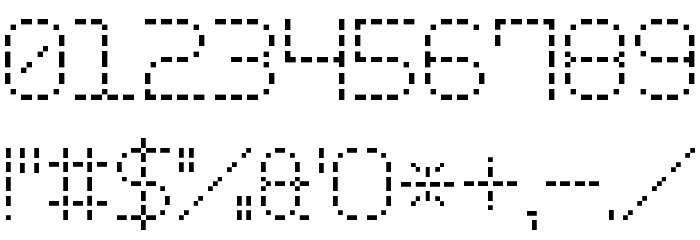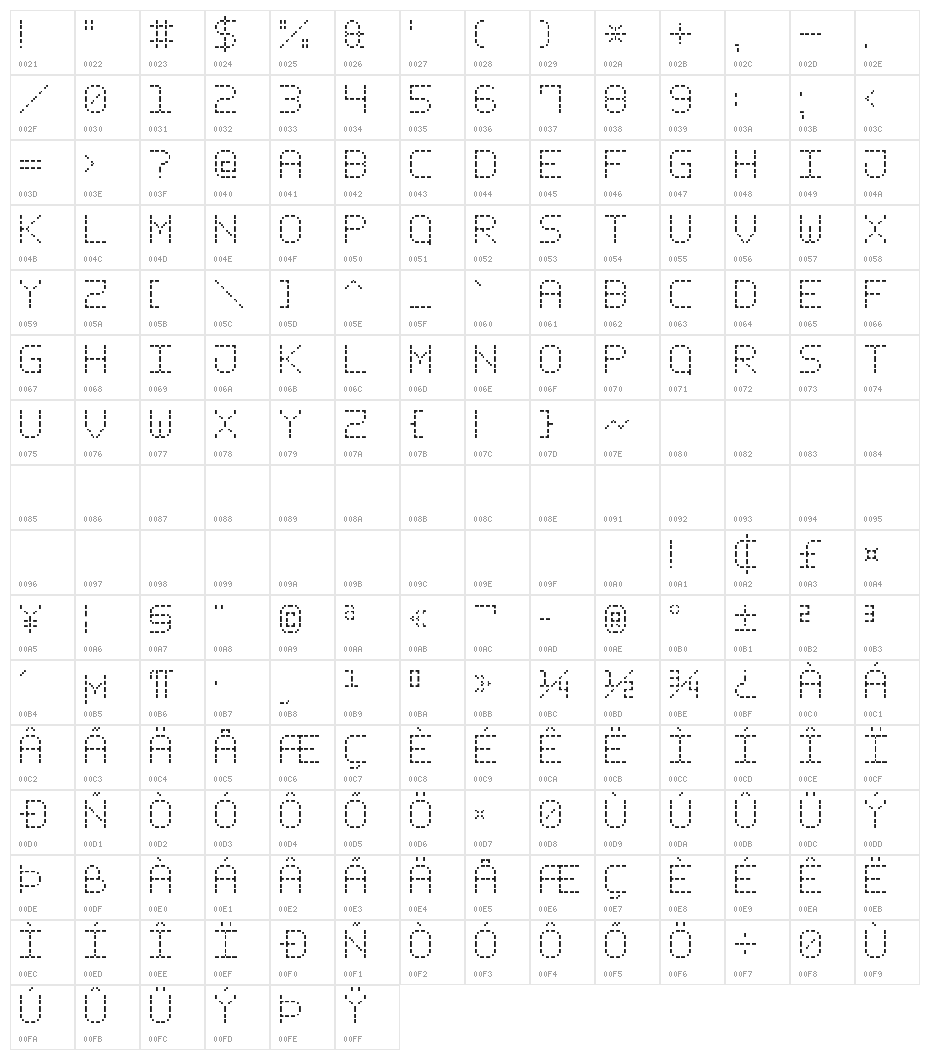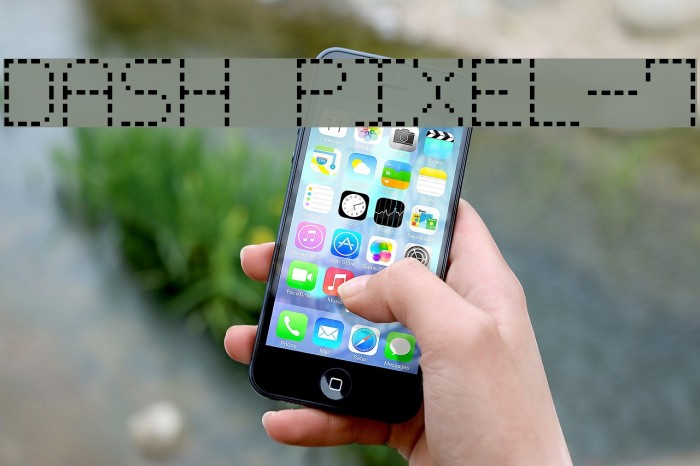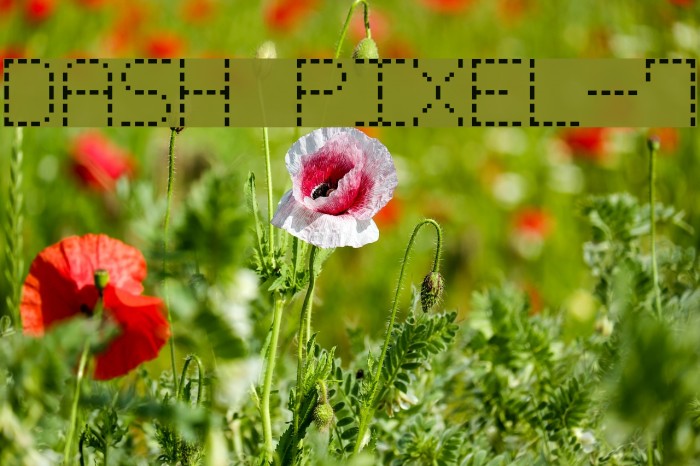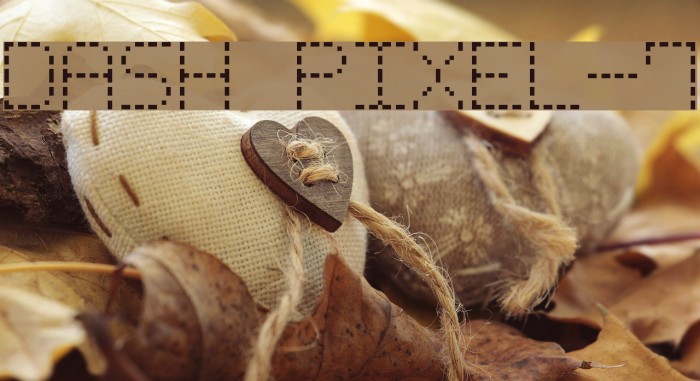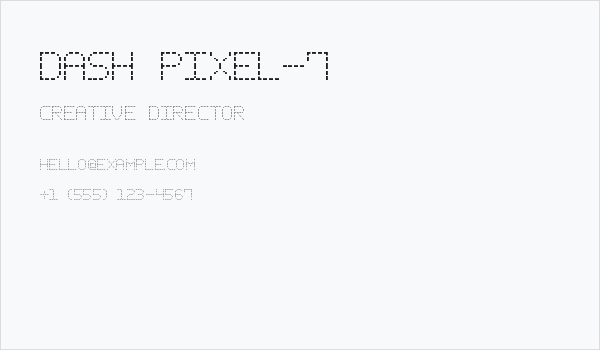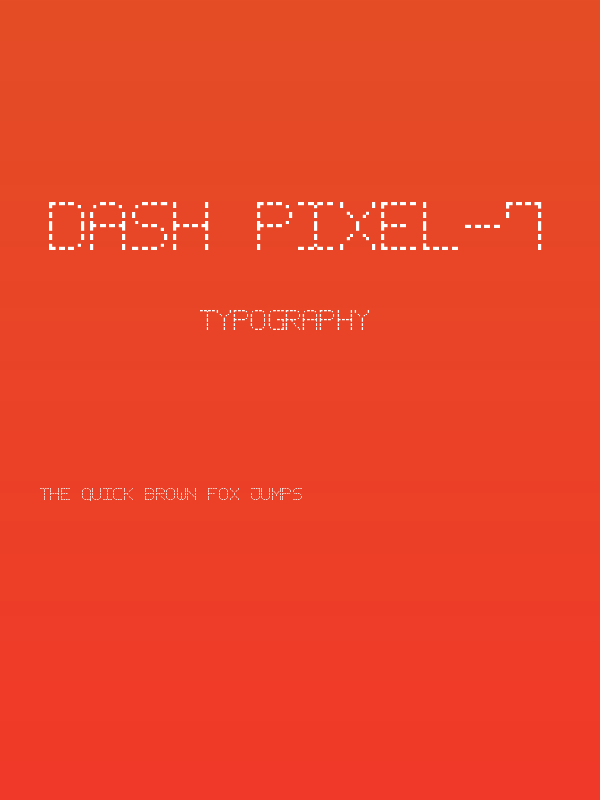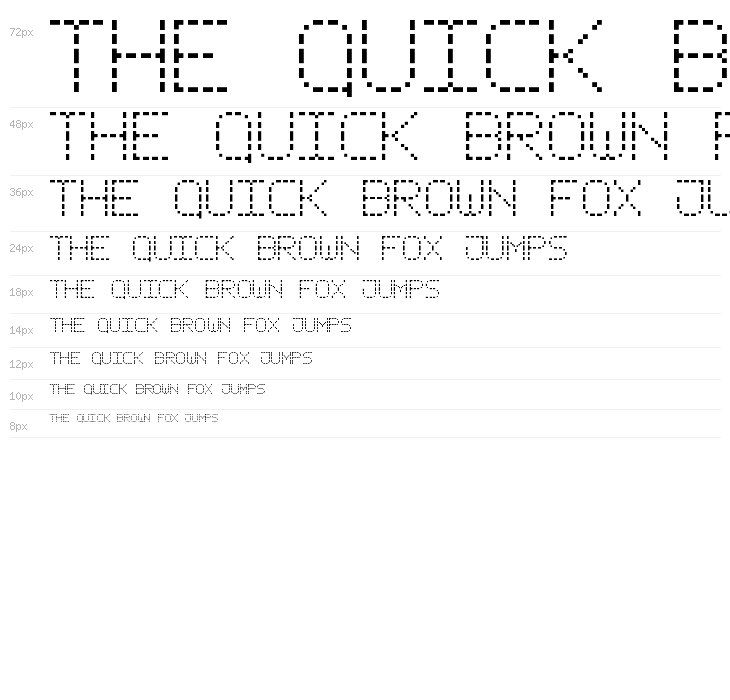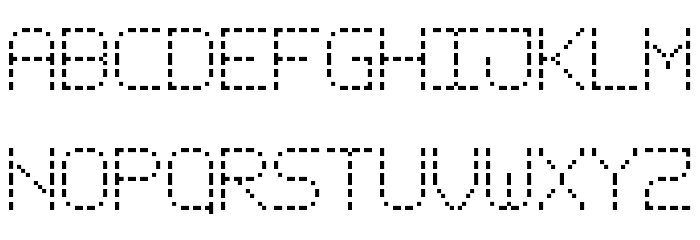
Dash Pixel-7 Font
Dash Pixel-7 Description
This font features a unique pixelated design, where each character is constructed from a series of small, evenly spaced dots. The style is reminiscent of early digital displays or retro video games, giving it a distinct, nostalgic feel. The characters are uniformly aligned, maintaining a consistent height and width, which contributes to its clean and organized appearance. This font is highly legible, even at smaller sizes, due to the clear separation between each dot. The overall aesthetic is modern yet playful, making it suitable for creative and tech-oriented projects.
Overall StyleModern, Retro
Use CaseHeadlines, Logos, Digital displays
Proposed ProjectsIdeal for digital art, retro-themed designs, video game graphics, and tech branding.